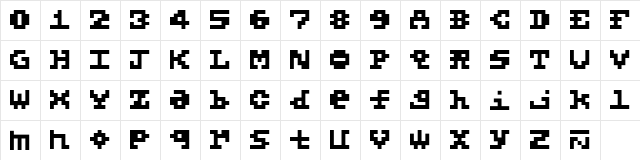
5X5 Basic
Design Context for 5X5 Typeface
5X5 takes a measured approach to typography — its balanced proportions and neutral character make it a reliable workhorse for both digital and print work.